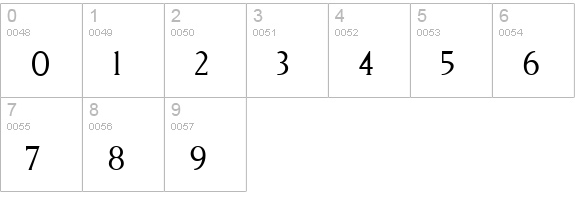
MatrixBookLining Regular is the standard, neutral variant in the MatrixBookLining typeface family \xE2\x80\x94 well suited to general body text, paragraphs, and standard typographic work.
MatrixBookLining Regular is a sleek and modern font that exudes sophistication and professionalism. Its clean lines and balanced proportions make it perfect for a wide range of design projects, from branding to editorial layouts. The font's versatility allows it to be used effectively in both digital and print media, ensuring a polished and refined finish every time. What sets MatrixBookLining Regular apart is not only its elegant design but also the fact that it is available for free download at FontsMarket.com. This means that you can access this high-quality font at no cost, making it an excellent choice for designers on a budget or anyone looking to add a touch of class to their projects without breaking the bank. Don't miss out on the opportunity to enhance your designs with MatrixBookLining Regular – download it for free today at FontsMarket.com!